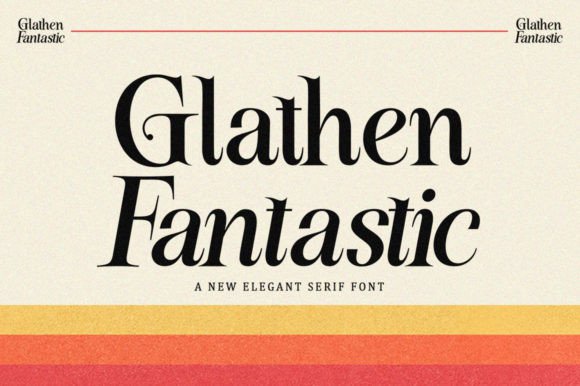
Unleash the Enchantment of Glathen Fantastic: Where Elegance Meets Style
In the realm of typography, Glathen Fantastic emerges as a radiant gem, a serif font that effortlessly elevates your creative endeavors to new heights of sophistication. With its meticulously crafted curves and timeless allure, this font embodies the essence of luxury and refinement.
Step into the world of Glathen Fantastic and discover a universe of breathtaking possibilities. Adorn your logotypes with an air of distinction, infuse your branding with a touch of elegance, and transform your wedding invitations into exquisite works of art. Let your blog headlines dance with grace and captivate your readers with an unparalleled visual symphony.
As you journey through the tapestry of Glathen Fantastic's characters, you'll find yourself immersed in a world of boundless inspiration. Each letterform is a testament to the font's meticulous design, beckoning you to explore the depths of your creativity and unleash your artistic vision.
With support for a vast array of languages, Glathen Fantastic transcends borders and embraces the beauty of diversity. From the intricate script of Armenian to the flowing grace of Western European tongues, this font adapts seamlessly to your linguistic needs.
Embrace the artistry of Glathen Fantastic and elevate your creative pursuits to new realms of excellence. Indulge in the luxury of its timeless design and let your imagination soar. The world of Glathen Fantastic awaits your arrival, ready to ignite your passion and transform your vision into reality.